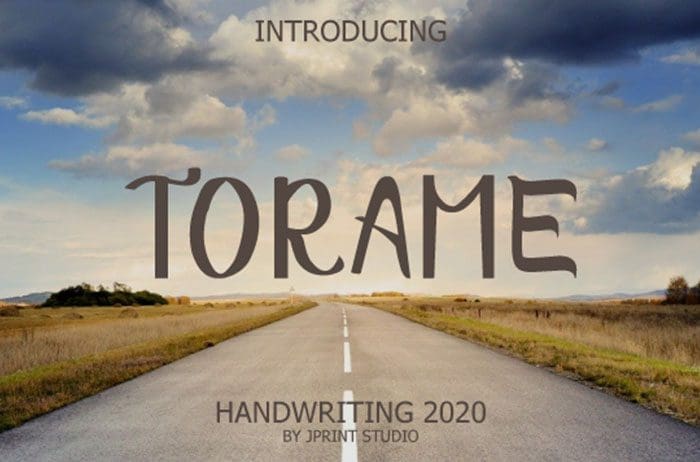
Free Torame Handwritten Font
Torame Handwritten Font
Free Torame handwritten font is a friendly and fun typeface. Torame is best suited for headlines of all sizes, as well as for blocks of text that have both maximum and minimum variations. This font is available only for personal use. Created this font by Jprint Studio. You can also search more free Handwritten Fonts. Thanks.